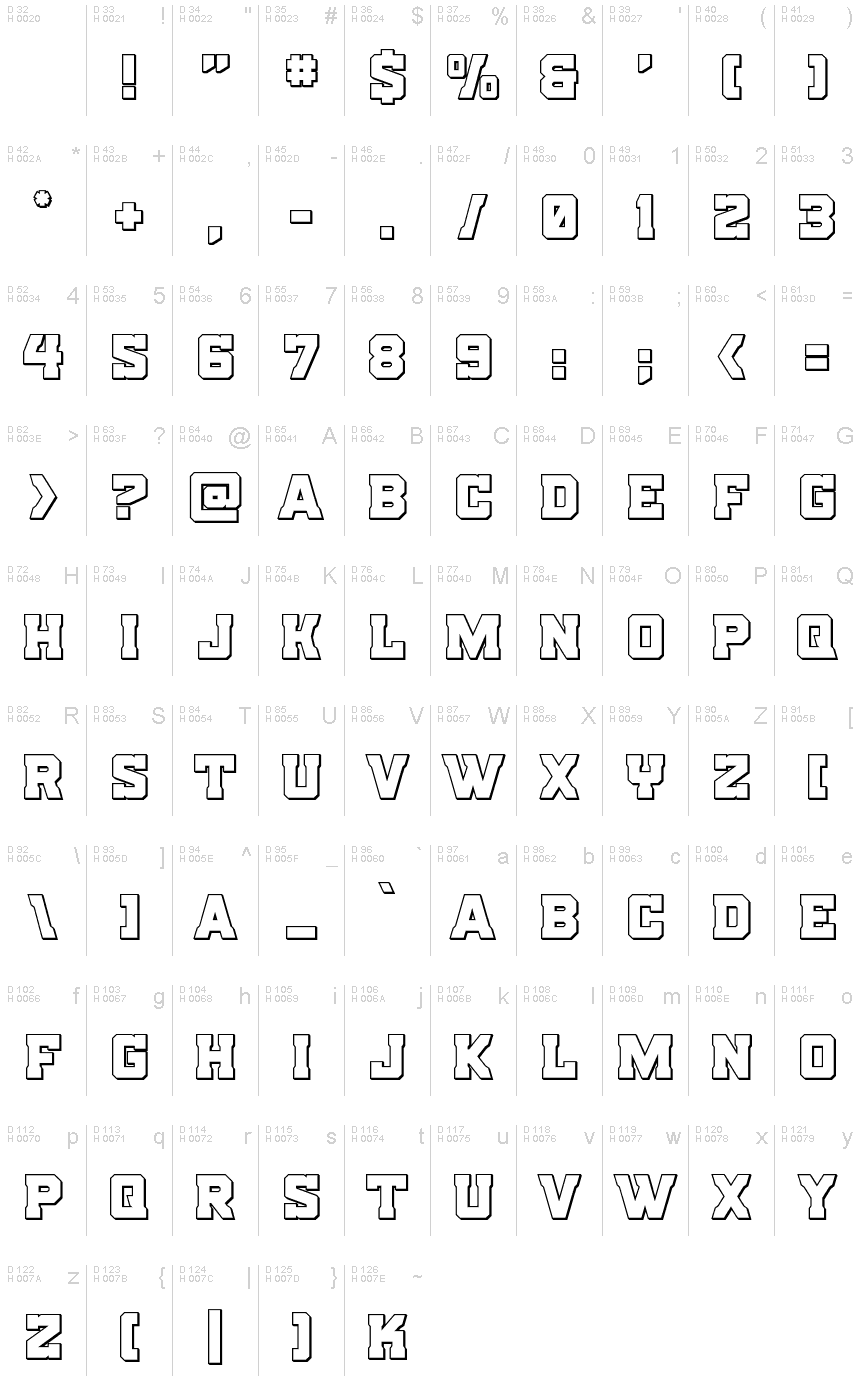
Indian Steeds 3D
Indian Steeds 3D is a bold and wide display font designed by Daniel Zadorozny. Its 3D old school style makes it perfect for modern designs, video games, and logo designs. It's also great for any project that needs a retro-inspired touch.